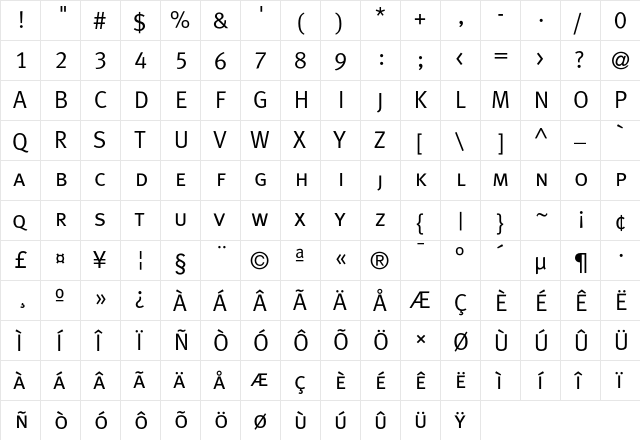
Meta-Caps Regular
Design Context for Meta-Caps Typeface
Meta-Caps offers clean, dependable letterforms without strong stylistic allegiance, making it a practical choice for designers who need flexibility.